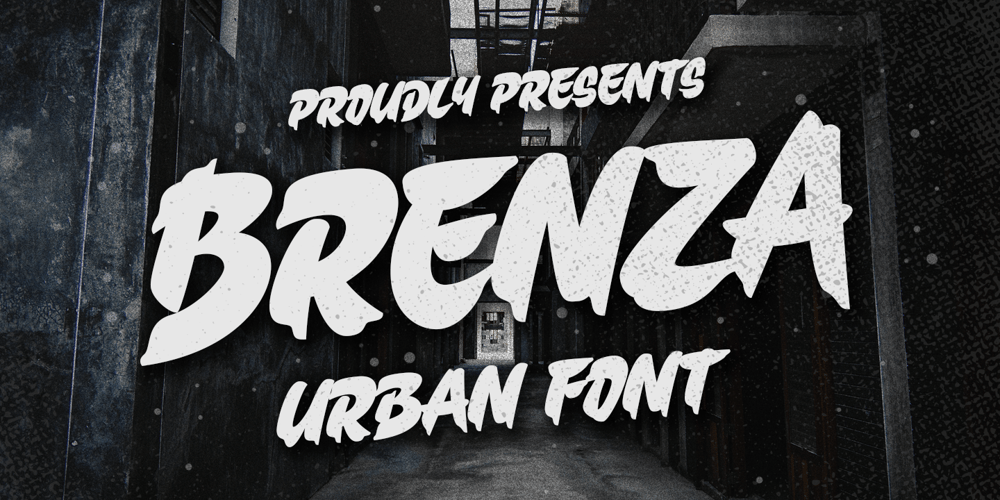
Brenza
Brenza font
Brenza Font Family was designed by Bangkit Tri Setiadi and published by Blankids. Brenza contains 1 styles and family package options. Introducing of our new product the name is Brenza an Urban Font, Brenza inspired by urban style letters with a fun theme very good for poster, flyer, logotype, urban theme design.FEATURES : Uppercase Lowercase Number Punctuation Multilingual PUA Encode Opentype